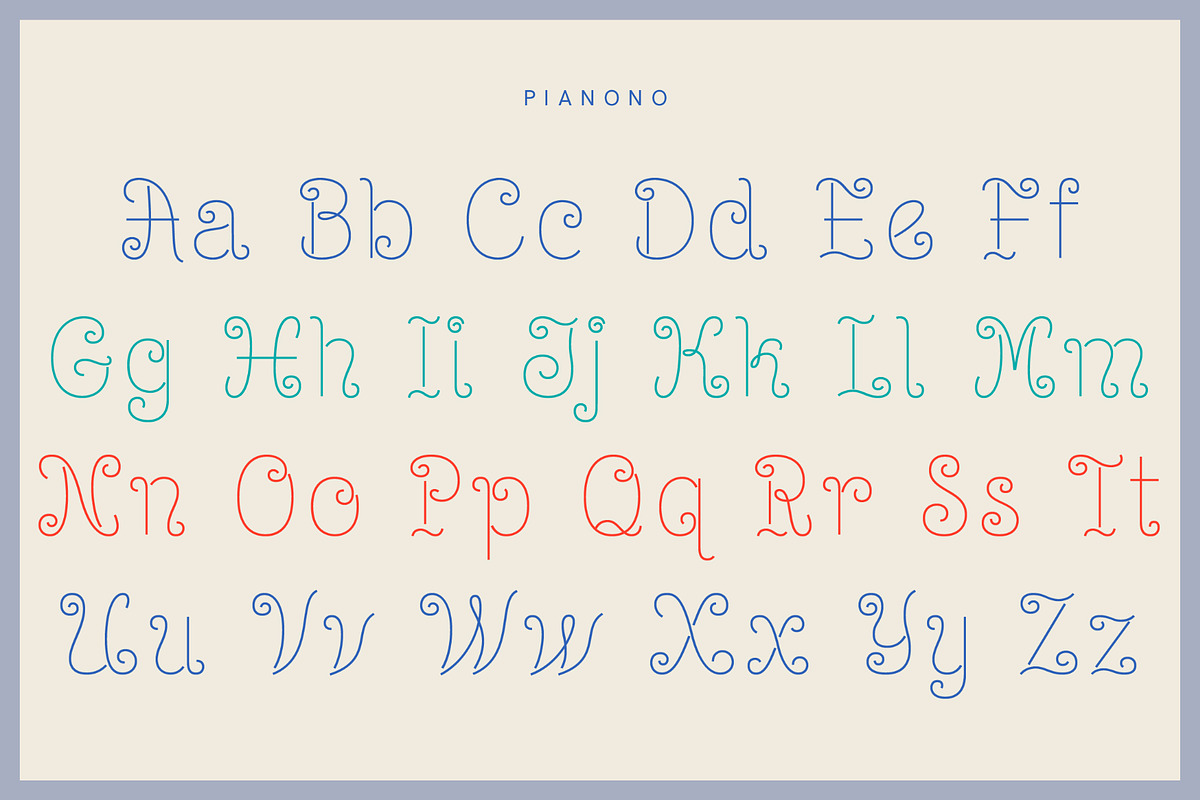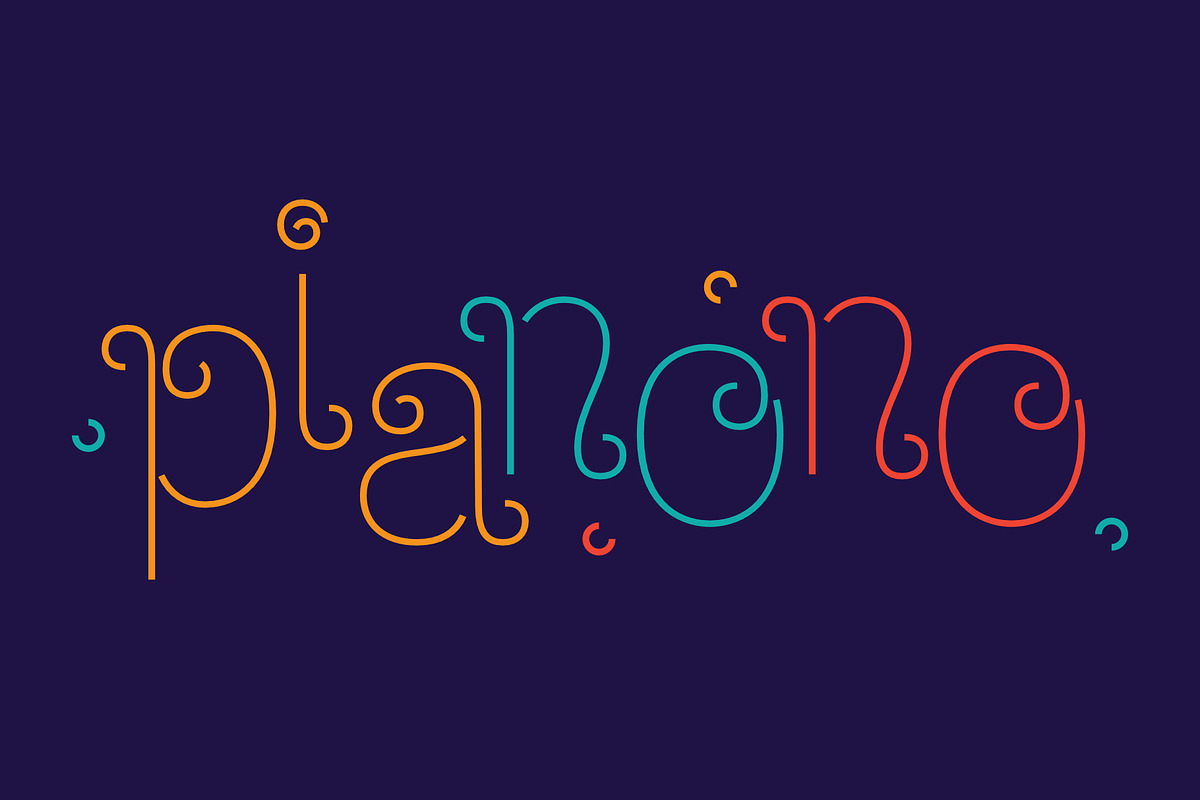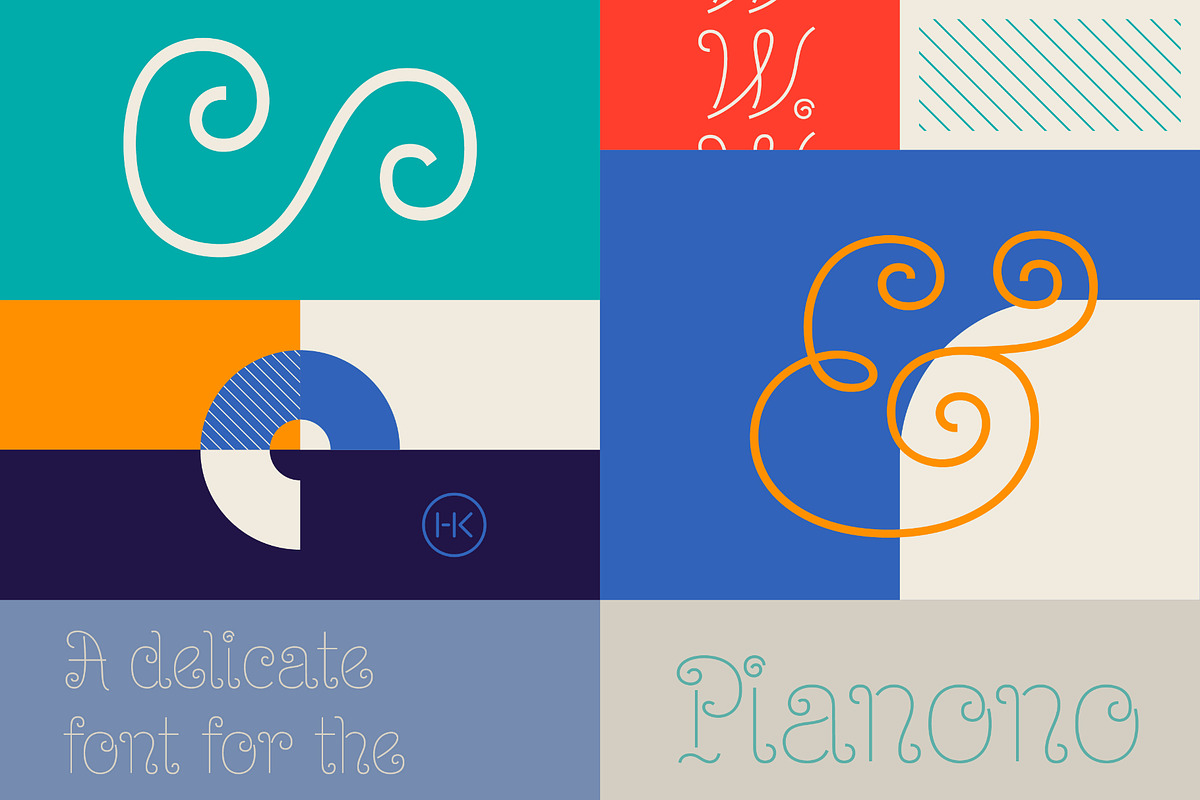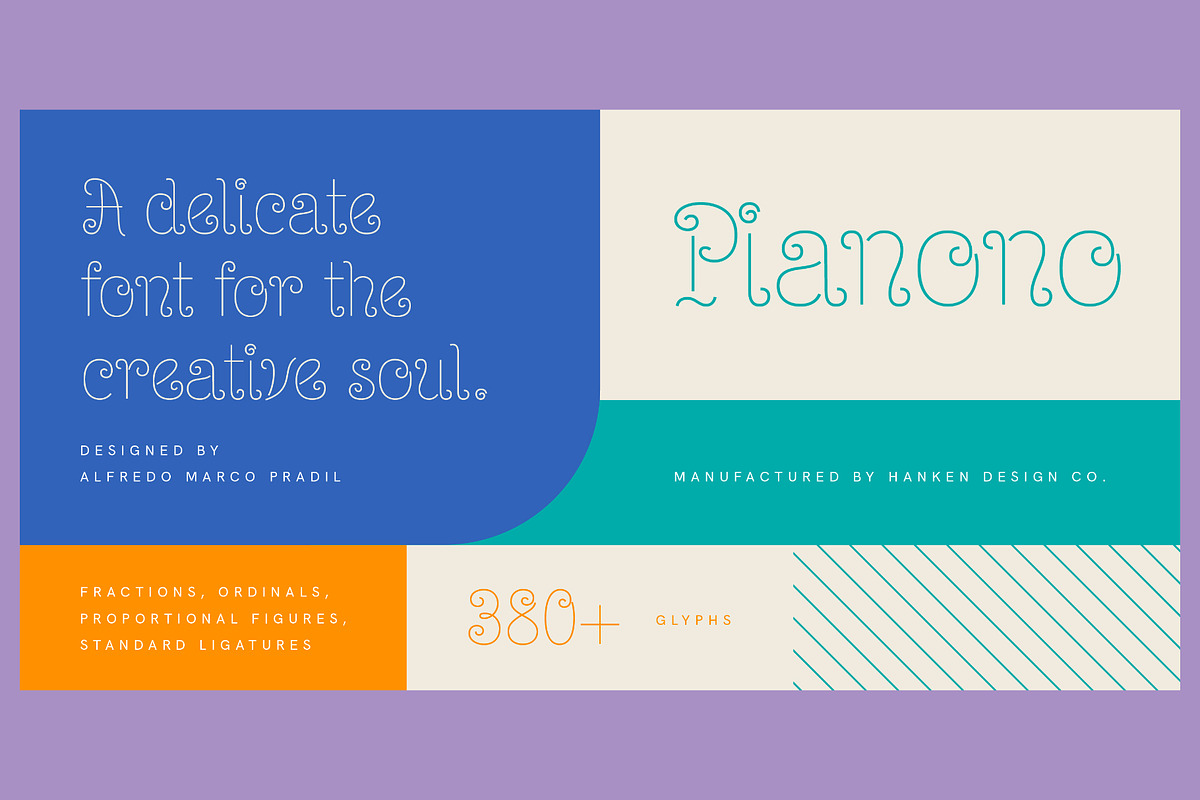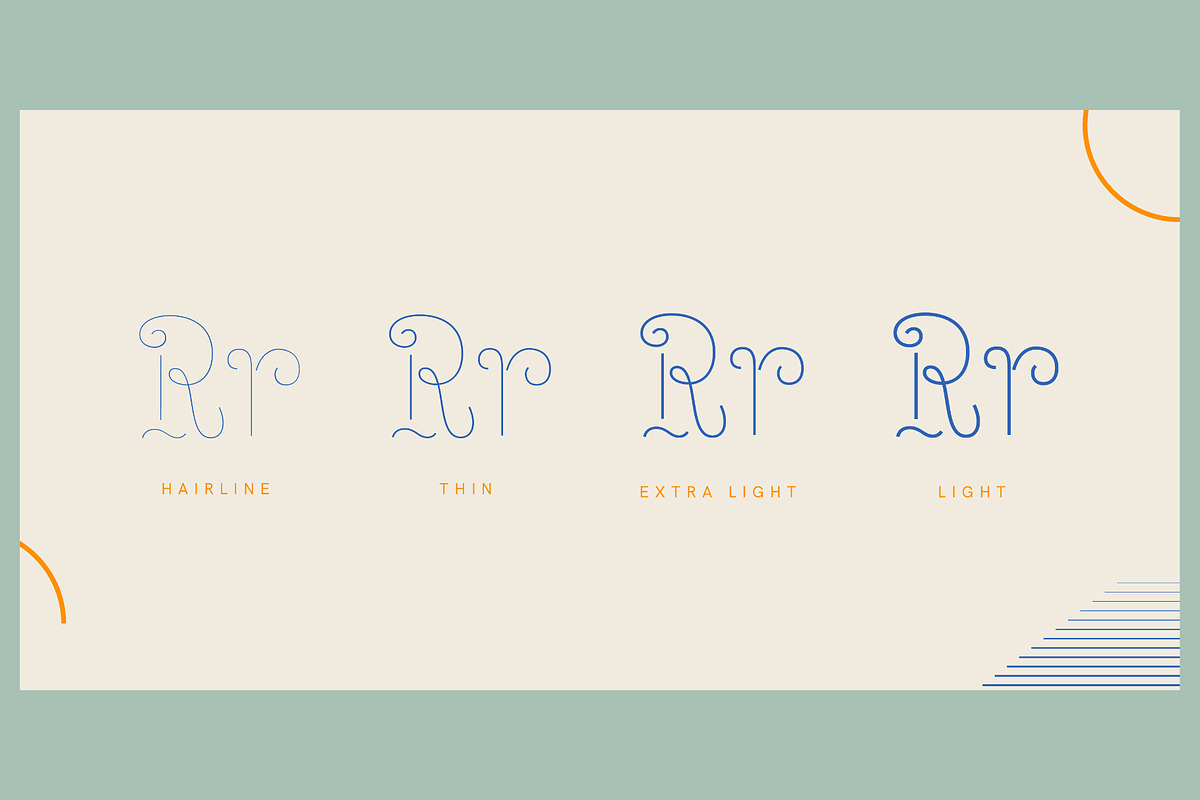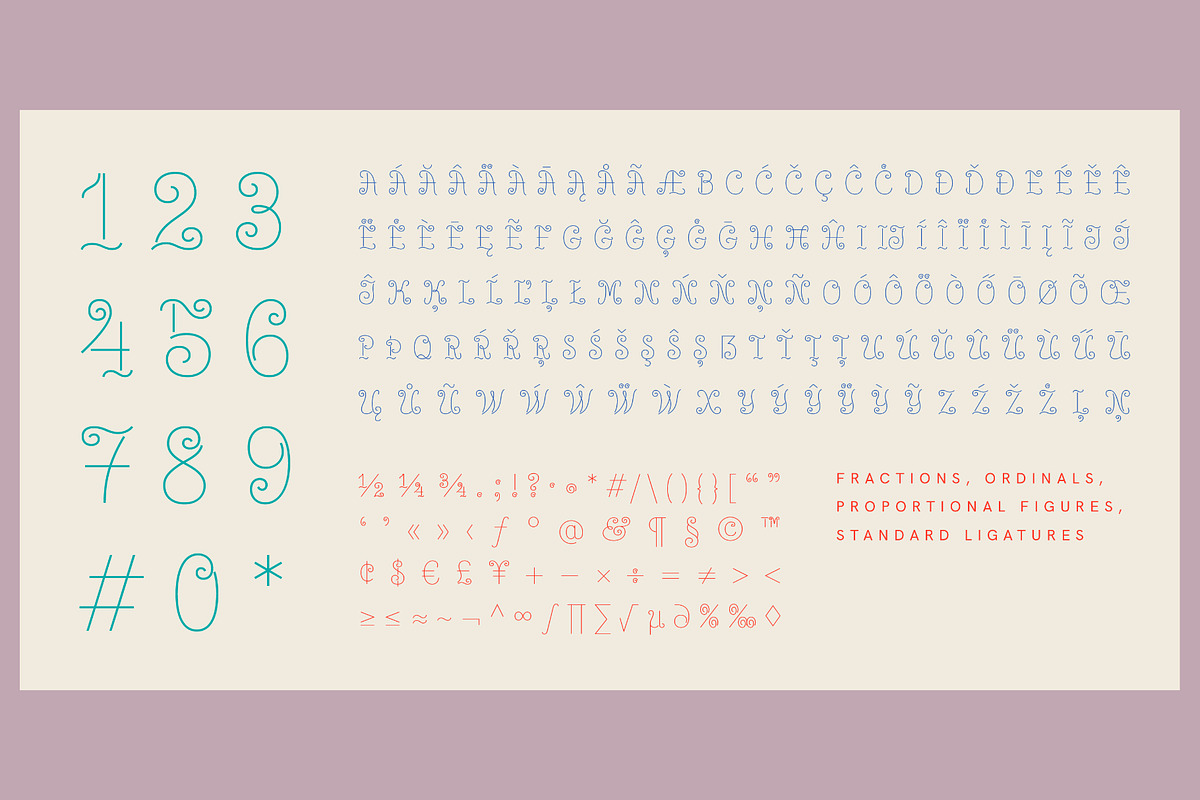
Pianono Typeface
Like the delicacy of the same name, the Pianono is a playfully simple typeface that everyone can enjoy. This font takes pride in its rusticity, just like the dessert after which it is designed. Although it abounds in spiral embellishments, the letters retain their characteristics, making them readily readable in a classier manner!
If you inspect the twists of every letter, number, and symbol, you will find that these are all unique! Some curls are only partly circling, some are larger while others are tighter, and some are mere curves. Additionally, you can always play with the colors if you want your text to resemble a different taste. You can even create your own: strawberry, zesty orange, name it. That is the beauty of the Pianono! Its versatility is in your creativity!